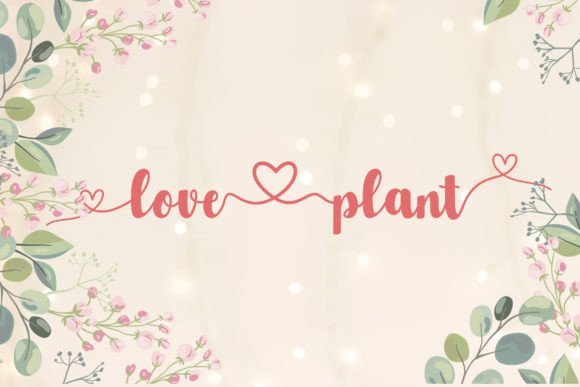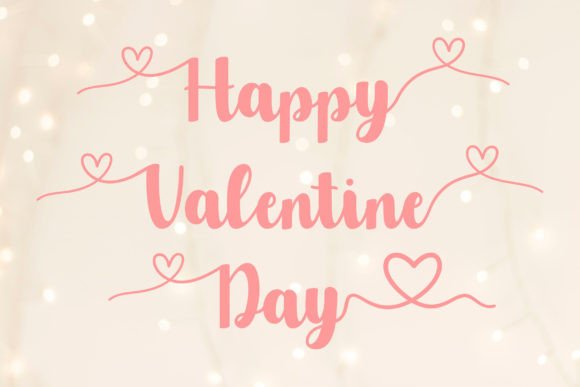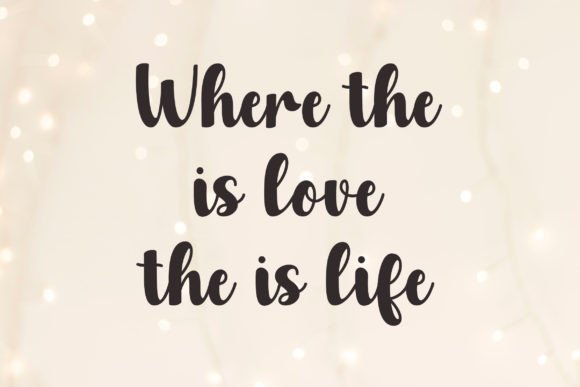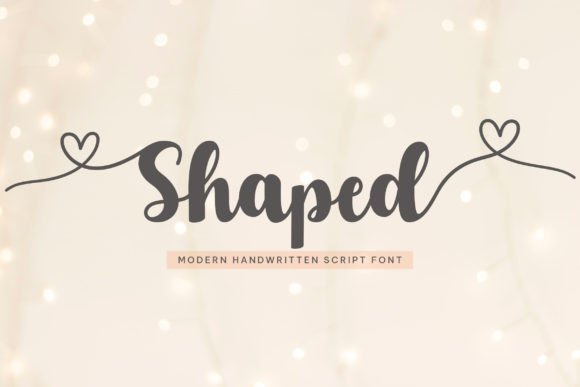
Introduction to Shaped Font
Shaped is a sweet and cute handwritten font.
Fall in love with its incredibly versatile style and use it to create gorgeous wedding invitations, beautiful stationary art, eye-catching social media posts, quotes, and much more This font is PUA encoded, which means you can access all of the glyphs and swashes with ease.
Key Features of Shaped Font